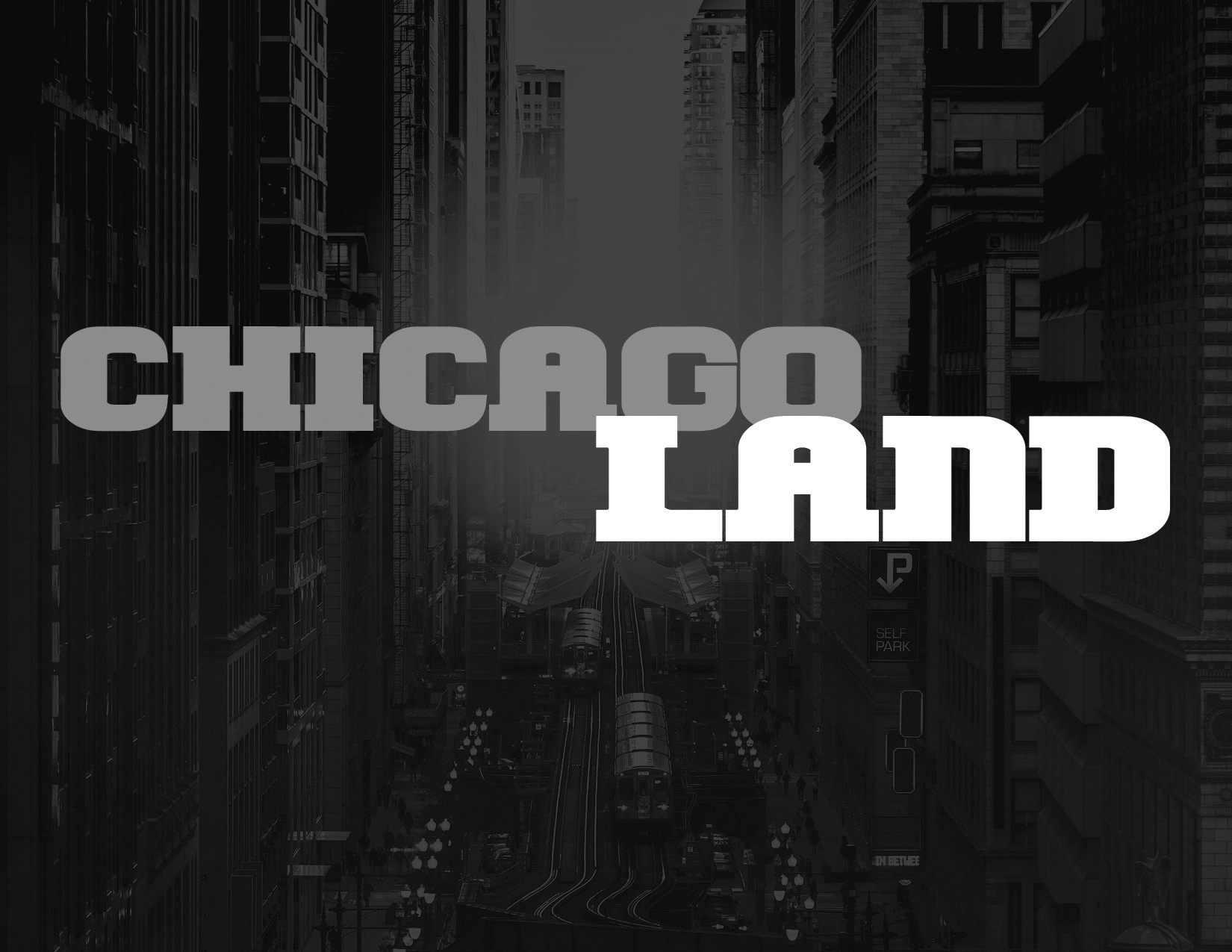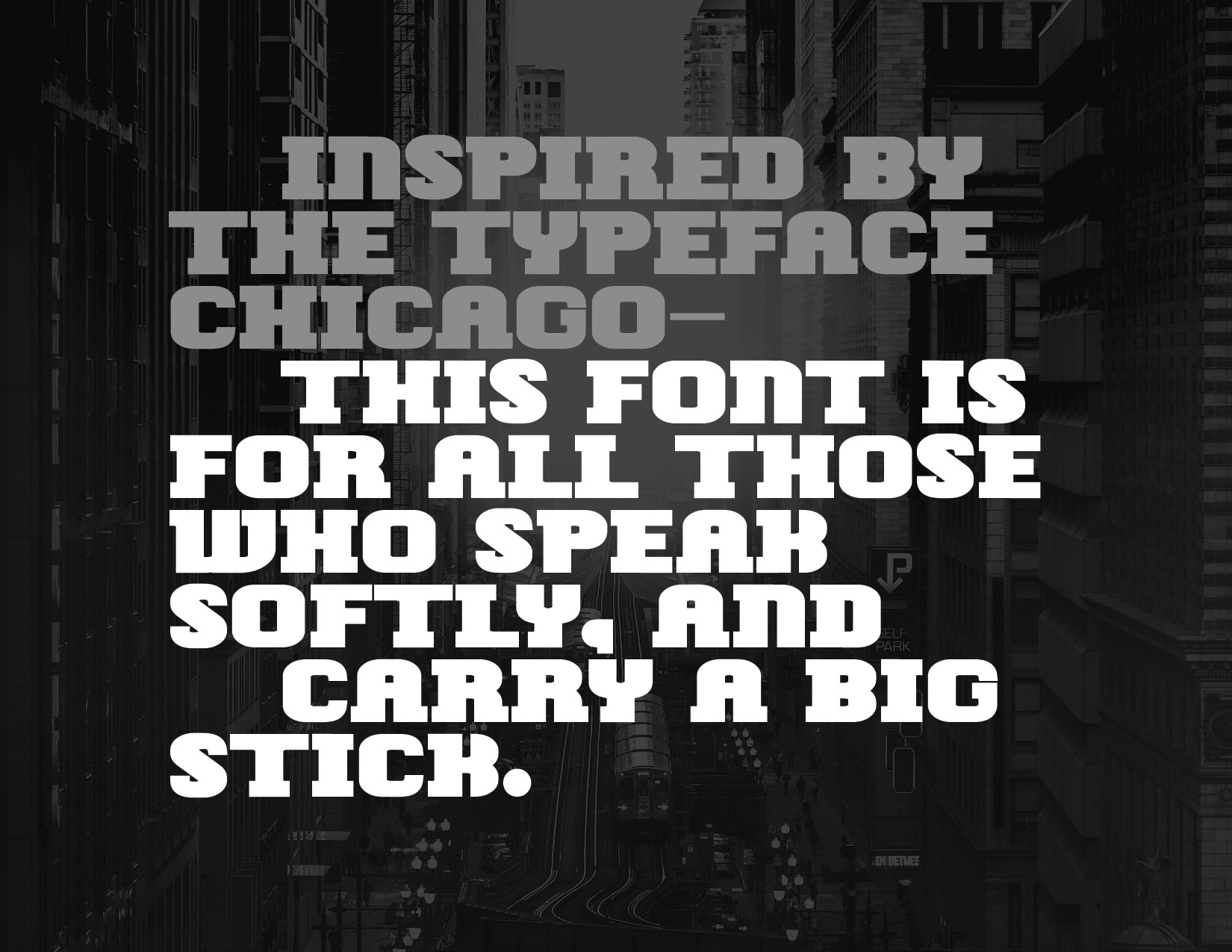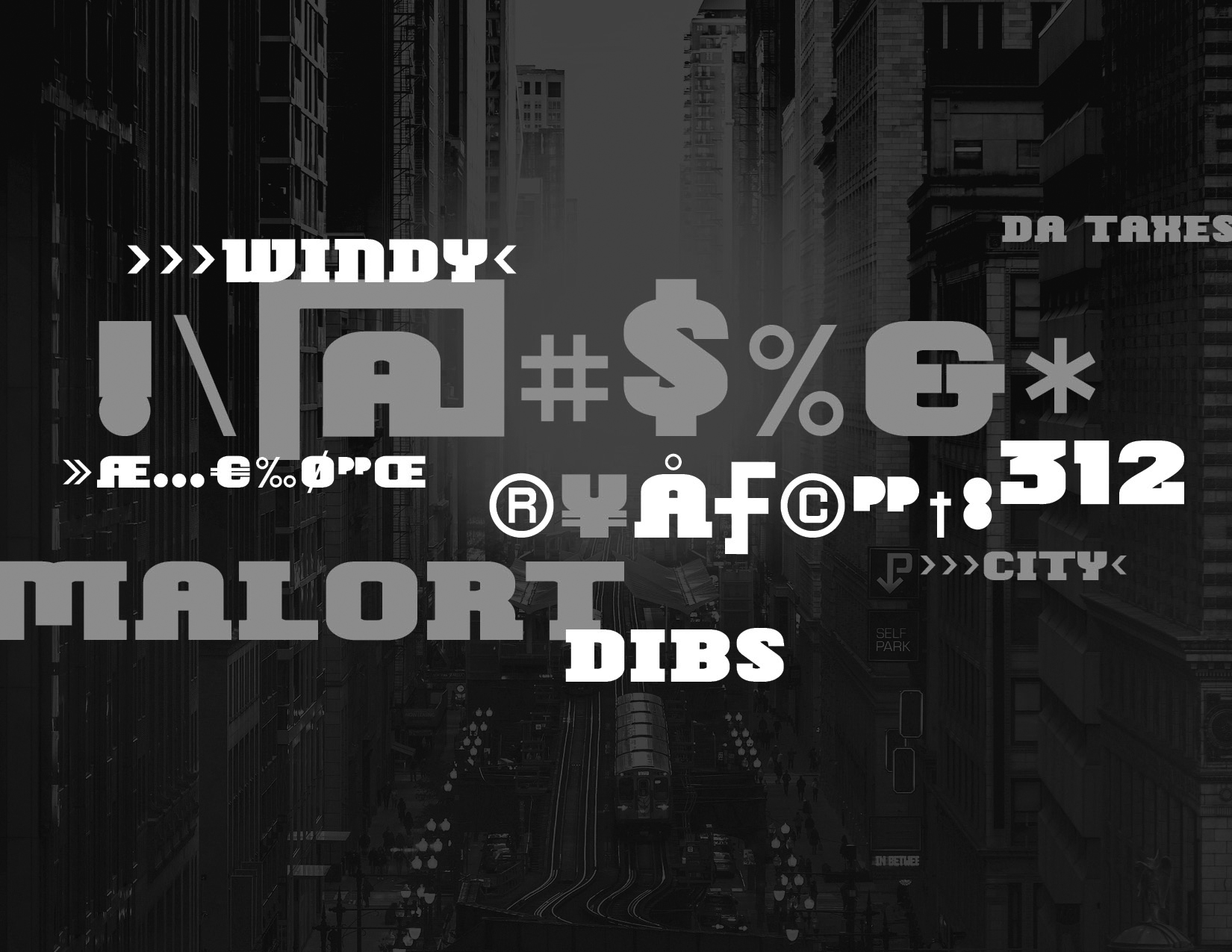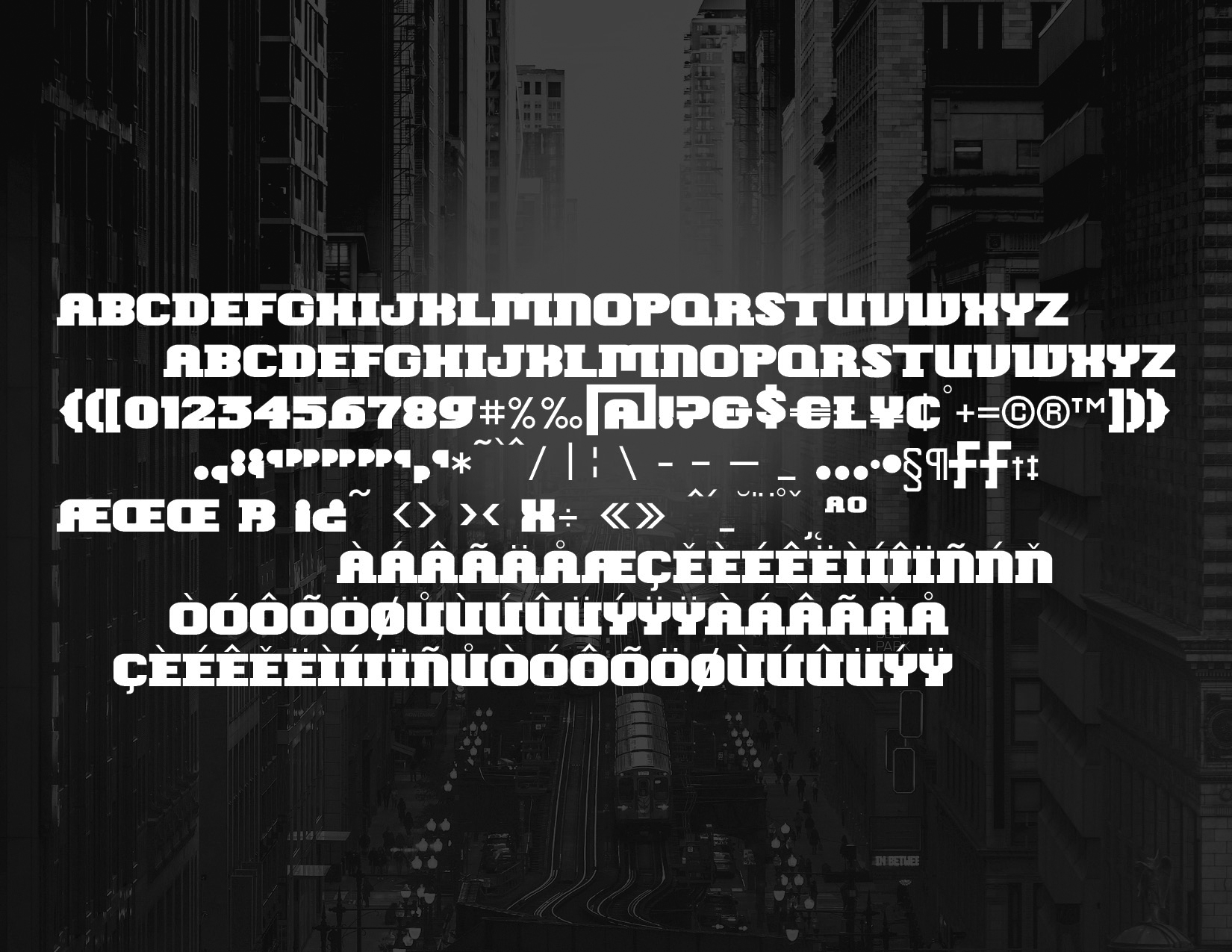
Chicagoland
It has been stated that the first font to be developed for the Macintosh was “Chicago”. Chicagoland is a tribute to and inspired by this. With a bolder weight, and a little more “beef”, Chicagoland is like the people of the city — strong with a good work ethic, and that midwest friendly. Sometimes loud, but always on your side when push comes to shove.
Designer(s): Sean Fermoyle, 2025